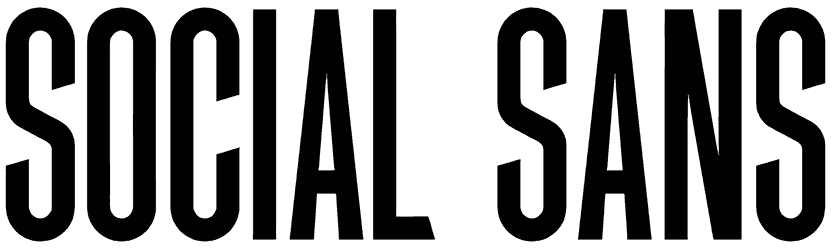
Social Sans Font
Looks like you’ve just found the perfect modern font for all your sports designs, social media banners, and everything like that. That’s just how Social Sans works, turning your letters into bold pieces of graphics and attracting all the attention to your art.
Because there’s no lowercase, you’d better stick to using this condensed font as titles for your posters, or logos for gym equipment, pharmacy, and similar businesses. There’s also a second style you can try if you want.
SOCIAL SANS is a highly diverse condensed display font for content creators, digital designers and social media graphic designers.
It is best used for short lines of text in social media graphics, but can be used in many other applications as well!